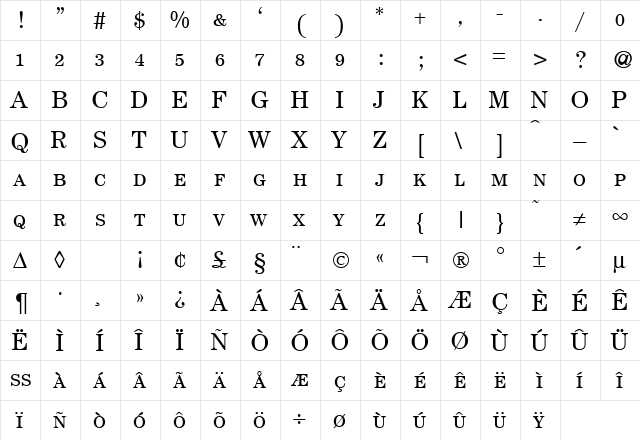
ModernCenturySmc Bold
Design Context for ModernCenturySmc Typeface
ModernCenturySmc is a composed and adaptable typeface that performs quietly and consistently across a wide range of design contexts. The heavy weight commands attention and anchors typographic hierarchies.